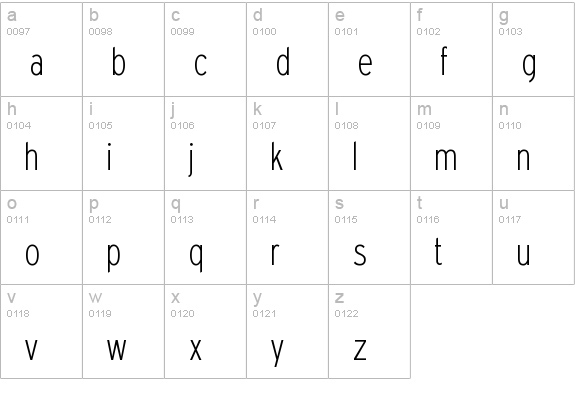
Expressway Cd El Font Details
Expressway Cd El is a modern and stylish font that exudes a sense of speed and efficiency. Its sleek design makes it perfect for conveying a sense of urgency or movement in your projects. The sharp angles and clean lines give this font a futuristic look that is sure to capture attention. What makes Expressway Cd El even better is that it is available for free download at FontsMarket.com. This means you can add this dynamic font to your collection without any cost, making it a must-have for any designer looking to make a bold statement. Don't miss out on the opportunity to elevate your designs with Expressway Cd El – download it today and start creating eye-catching visuals that stand out from the crowd.